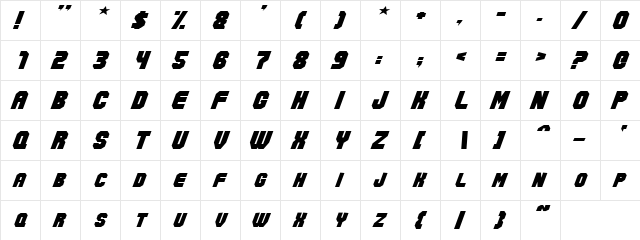
Action Force Normal Font Preview
Action Force Normal
Design Context for Action Force Typeface
Action Force has the bold swagger of sports branding: strong, assertive letterforms designed to dominate headlines and jerseys alike.
A natural choice for gym brands, fantasy sports, jersey lettering, and action-driven headlines.
Font Pairing: Use alongside a condensed or geometric sans for supporting copy — keep the pairing bold, functional, and free of ornament.
Pro Tip: Use Action Force in all-caps headlines where its athletic energy can fully express itself. Pair with a solid, simple sans for supporting text.